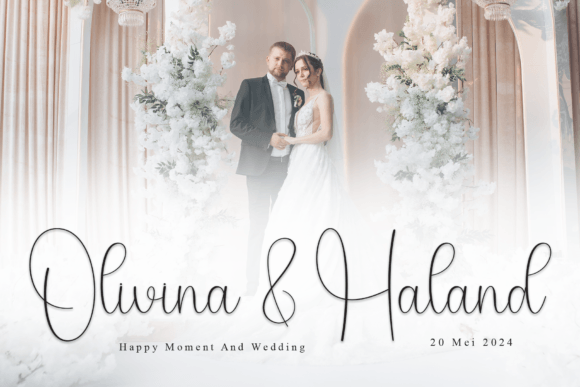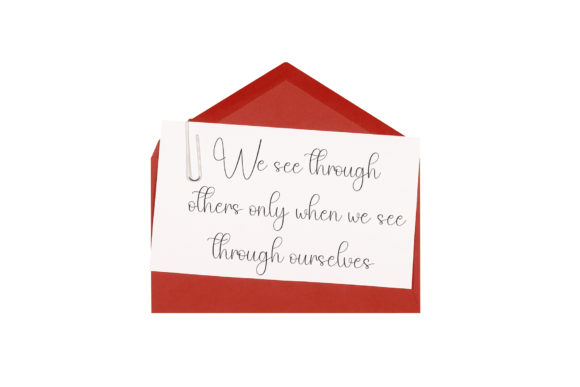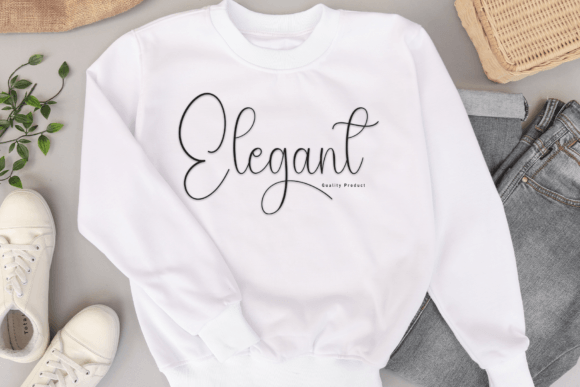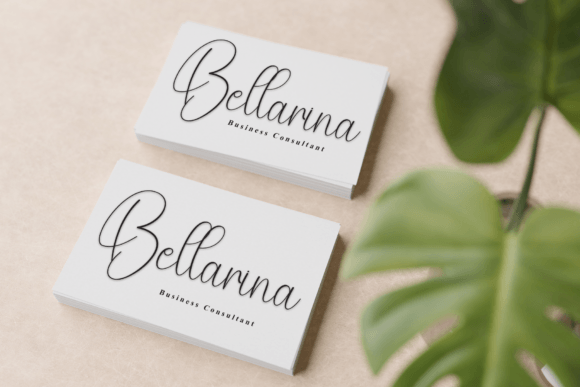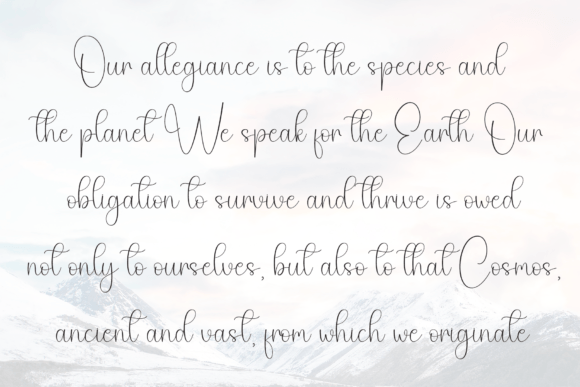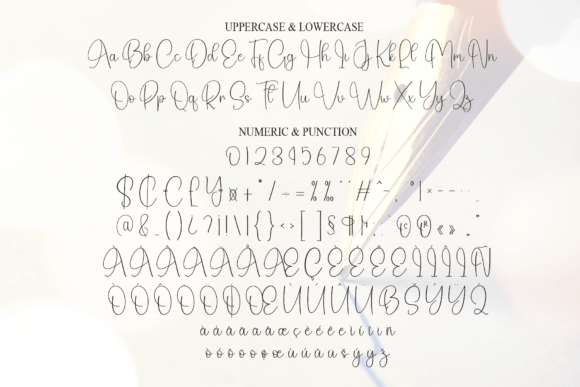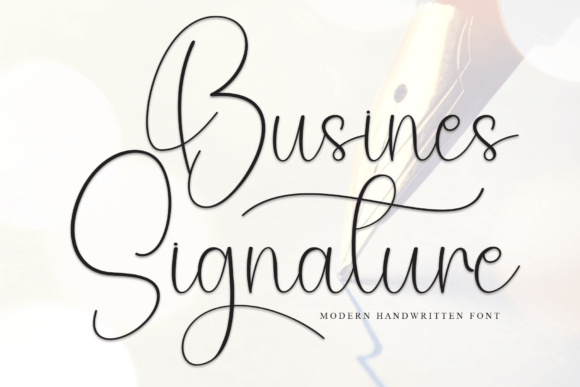
Introducing Business Signature Font: Elevate Your Brand with a Personal Touch
In the world of design, fonts play a crucial role in conveying the tone and personality of a brand. A well-chosen font can make all the difference in creating a lasting impression on your audience. If you’re looking for a font that exudes elegance, sophistication, and a personal touch, look no further than the Business Signature font. In this article, we’ll explore the features and benefits of this modern font and how it can elevate your brand to the next level.
What is Business Signature Font?
Business Signature is a modern font designed to resemble a stylish handwritten signature. It’s perfect for adding a personal touch to your documents, logos, or branding materials. The font is elegant, easy to read, and makes your text stand out with a professional flair. Whether you’re a designer, craftsperson, or business owner, this font is sure to impress.
Key Features of Business Signature Font
- Elegant and Sophisticated: Business Signature font boasts an elegant and sophisticated design that’s perfect for high-end brands, luxury products, or professional services.
- Handwritten Style: The font’s handwritten style gives it a personal and approachable feel, making it ideal for brands that want to connect with their audience on a more personal level.
- Easy to Read: Despite its elegant design, the Business Signature font is easy to read, making it perfect for body text, headings, or titles.
- Professional Flair: The font’s modern design and stylish lines give it a professional flair that’s sure to impress your audience.
- Versatile: Business Signature font is versatile and can be used for a wide range of applications, from logos and branding materials to documents and presentations.
Benefits of Using Business Signature Font
So, why should you choose Business Signature font for your design projects? Here are just a few benefits:
- Stand Out from the Crowd: With its unique and stylish design, Business Signature font can help your brand stand out from the competition.
- Conveys Professionalism: The font’s modern and elegant design conveys professionalism and sophistication, making it perfect for businesses that want to establish a strong brand identity.
- Personal Touch: The handwritten style of the font adds a personal touch to your designs, making them more approachable and relatable.
How to Use Business Signature Font
Using Business Signature font is easy. Here are a few tips:
- Pair it with Other Fonts: Pair Business Signature font with other fonts to create a unique and stylish design.
- Use it for Headings: Use Business Signature font for headings or titles to add a touch of elegance and sophistication.
- Experiment with Colors: Experiment with different colors to find the perfect combination that works with your brand.
In conclusion, Business Signature font is a modern and elegant font that’s perfect for designers, craftspersons, and businesses looking to add a personal touch to their designs. With its stylish handwritten style, ease of use, and professional flair, this font is sure to elevate your brand to the next level. So why wait? Download Business Signature font today and start creating stunning designs that leave a lasting impression on your audience.